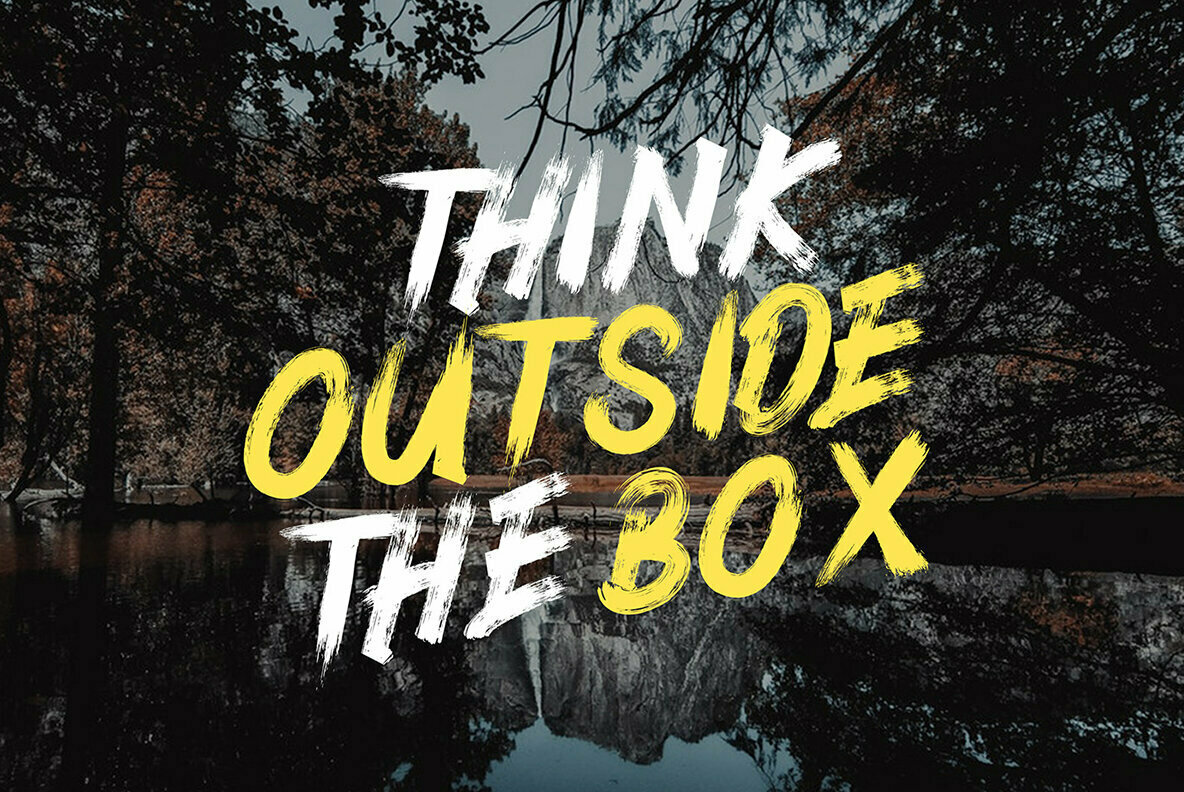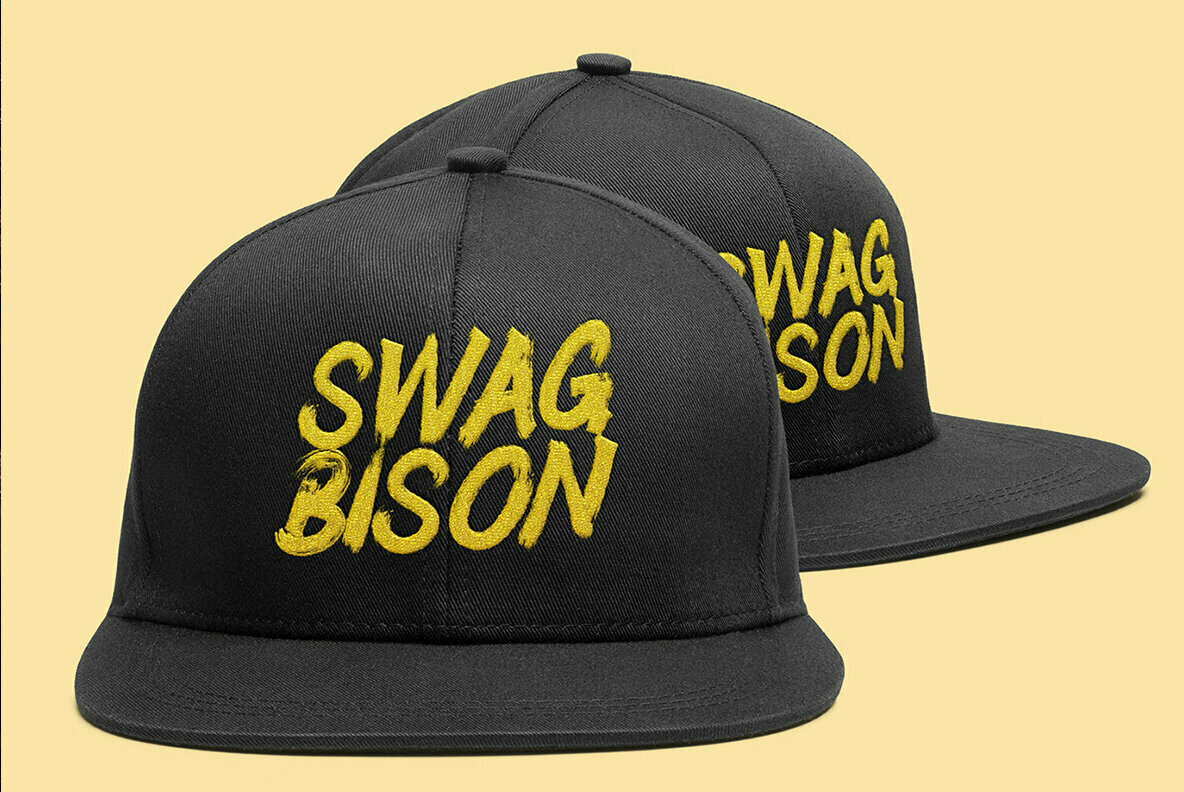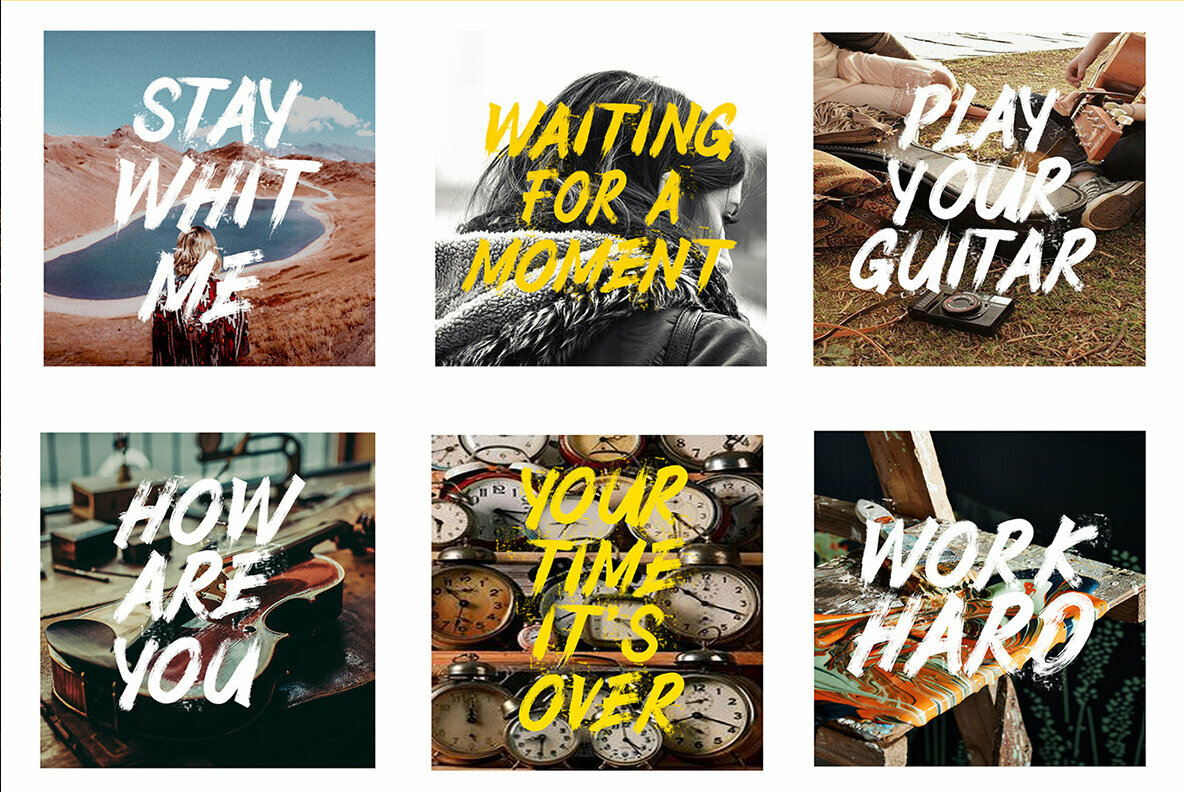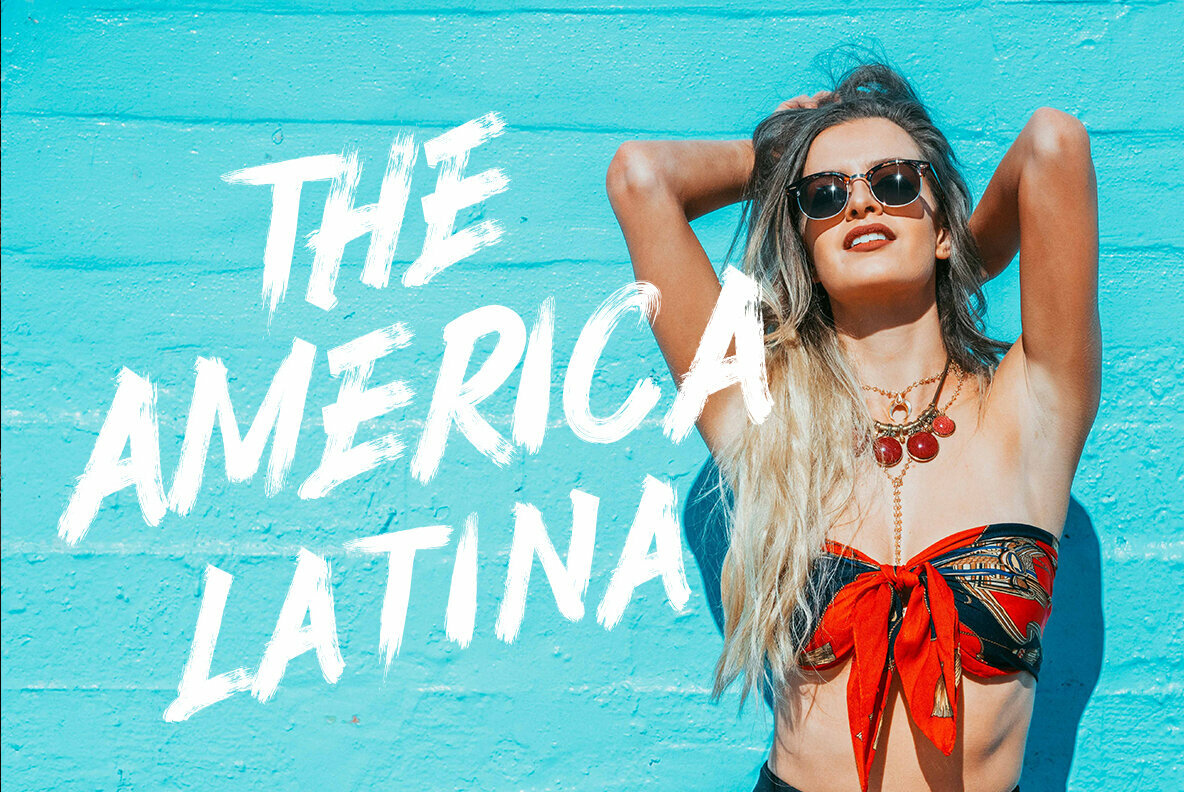
Untitled
Discover the world of typography with Untitled, a textured brush font that brings a contemporary edge to your design projects. Carefully crafted with a natural, handmade feel, it features irregular baselines that add an authentic touch. Perfect for title design, whether you're working on clothing, magazines, or book covers. Untitled's versatility shines across a broad spectrum of applications, making it an excellent choice for designers seeking a fresh and dynamic aesthetic.Untitled: A Distinctive Textured Typeface